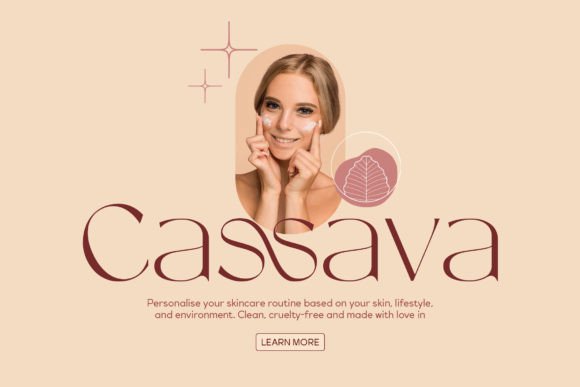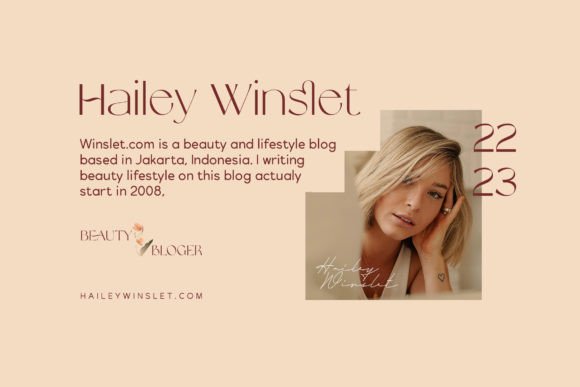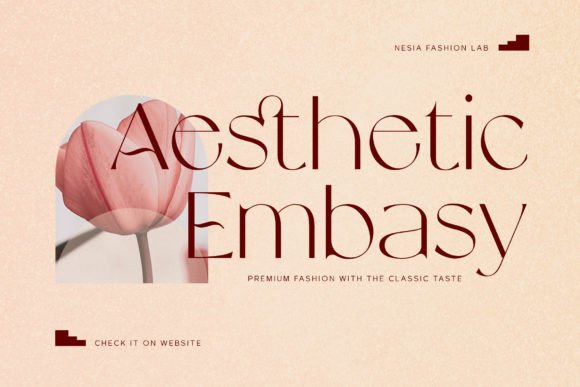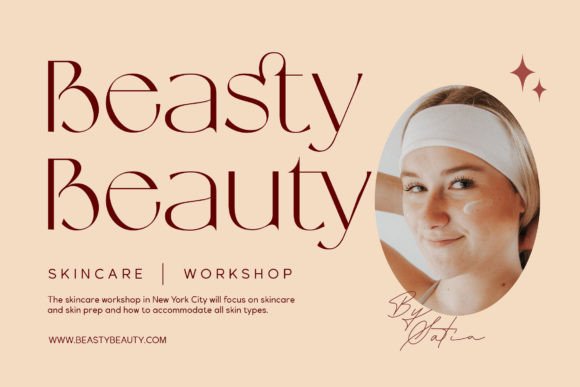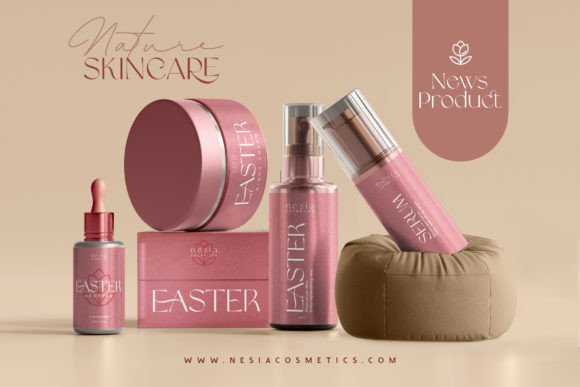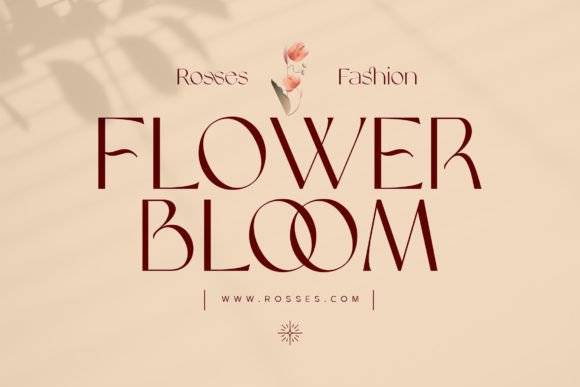
Introducing Hand Cream Font: The Ultimate Elegance for Your Design Projects
Are you a designer or crafter looking for a font that exudes modern elegance and sophistication? Look no further than Hand Cream Font, a stunning sans serif typeface that embodies expressive, romantic, feminine, and lovely qualities. In this article, we’ll dive into the features and benefits of Hand Cream Font, and explore how it can elevate your design projects to new heights.
What is Hand Cream Font?
Hand Cream Font is a meticulously crafted sans serif font that boasts a modern elegant aesthetic. Its clean lines, subtle curves, and refined edges make it perfect for a wide range of design applications, from luxury logos and branding to editorial designs, magazines, and advertising. With its unique character set, Hand Cream Font is sure to make your designs stand out from the crowd.
Key Features of Hand Cream Font
- Alternates and Ligatures: Hand Cream Font comes with a range of alternates and ligatures that allow you to create stunning typography designs. With these features, you can add a touch of elegance and sophistication to your text, making it perfect for high-end branding and editorial projects.
- PUA Encoding: Hand Cream Font is PUA (Private Use Area) encoded, which means you can access all the glyphs and swashes with ease. This makes it simple to use and customize the font to suit your design needs.
- Expressive and Romantic: Hand Cream Font is designed to be expressive and romantic, making it perfect for designs that require a touch of femininity and elegance.
Use Cases for Hand Cream Font
Hand Cream Font is an incredibly versatile typeface that can be used for a wide range of design projects, including:
- Luxury Logo and Branding: Create stunning logos and branding materials that exude elegance and sophistication.
- Editorial Designs: Use Hand Cream Font to create beautiful editorial designs, such as magazines, newspapers, and books.
- Woman’s Magazines: Hand Cream Font is perfect for woman’s magazines, adding a touch of femininity and elegance to your designs.
- Cosmetic Brands: Create stunning branding materials for cosmetic companies, showcasing products in a beautiful and elegant way.
- Fashion Promotional: Use Hand Cream Font to create eye-catching fashion promotional materials, such as flyers, posters, and billboards.
- Art Gallery Branding: Hand Cream Font is perfect for art gallery branding, adding a touch of sophistication and elegance to your designs.
- Museums: Create beautiful branding materials for museums, showcasing exhibits and collections in a elegant and refined way.
- Boutique Branding: Use Hand Cream Font to create stunning branding materials for boutiques, adding a touch of luxury and elegance to your designs.
- Stationery Designs: Create beautiful stationery designs, such as letterheads, business cards, and envelopes.
- Blog Designs: Hand Cream Font is perfect for blog designs, adding a touch of elegance and sophistication to your online presence.
- Modern Advertising: Use Hand Cream Font to create eye-catching advertising materials, such as print ads, digital ads, and social media graphics.
- Card Invitations: Create beautiful card invitations for special events, such as weddings, birthdays, and anniversaries.
- Art Quotes: Hand Cream Font is perfect for art quotes, adding a touch of elegance and sophistication to your designs.
- Home Decor: Use Hand Cream Font to create beautiful home decor materials, such as wall art, signs, and prints.
- Book/Cover Titles: Create stunning book and cover titles, adding a touch of elegance and sophistication to your designs.
- Special Events: Hand Cream Font is perfect for special events, such as conferences, festivals, and trade shows.
Why Choose Hand Cream Font?
With so many fonts available, why choose Hand Cream Font? Here are just a few reasons:
- Unique and Elegant: Hand Cream Font is a unique and elegant typeface that will make your designs stand out from the crowd.
- Versatile: Hand Cream Font is incredibly versatile, making it perfect for a wide range of design projects.
- Easy to Use: With PUA encoding, Hand Cream Font is easy to use and customize, even for designers who are new to font design.
In conclusion, Hand Cream Font is a stunning sans serif typeface that embodies modern elegance and sophistication. With its unique character set, alternates, and ligatures, it’s perfect for a wide range of design projects, from luxury logos and branding to editorial designs and advertising. Whether you’re a designer or crafter, Hand Cream Font is sure to become a valuable addition to your design toolkit.